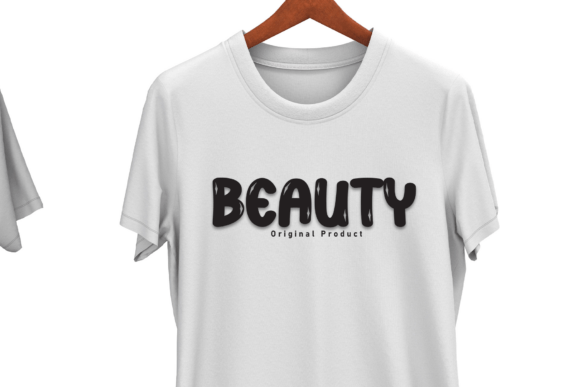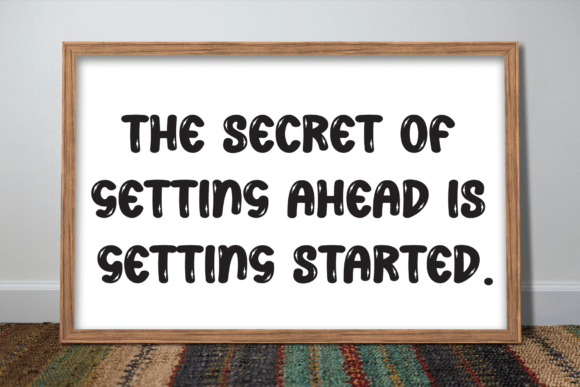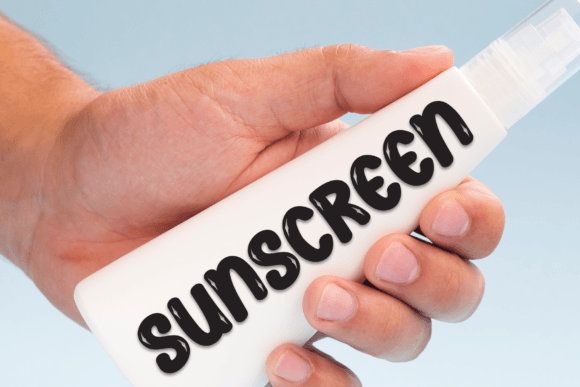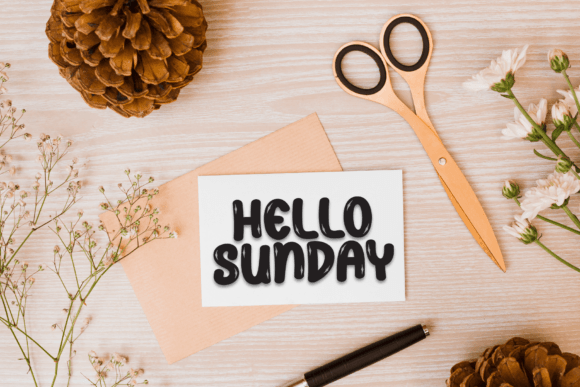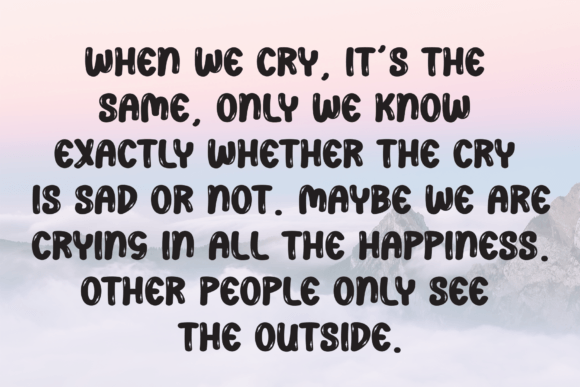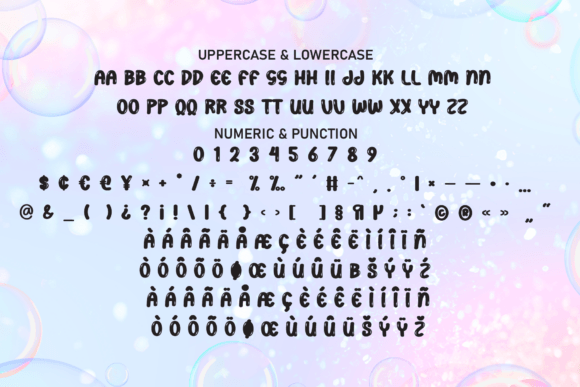
Get Ready to Pop with Joy: Introducing the Bubble Dream Font
Do you remember the excitement of opening a package of colorful bubble wrap? The sound of the bubbles popping, the thrill of the unknown, and the instant smile that spreads across your face. That’s exactly the kind of joy you can infuse into your designs with the Bubble Dream Font.
This playful font is designed to bring a sense of lightness and cheerfulness to your text. With its big, rounded, and friendly letters, it’s perfect for kids’ books, party invitations, and any project that needs a dash of whimsy. As a designer, you’ll appreciate the versatility of the Bubble Dream Font, which can add a touch of magic to your branding, advertising, or editorial work.
Whether you’re looking to create a fun and engaging visual identity or simply want to add some personality to your text, the Bubble Dream Font is sure to deliver. Its bubbly style is contagious, spreading joy and positivity wherever it’s used.
Bubble Dream Font Key Features
- Font Style: Casual, handwritten font with a playful and whimsical feel.
- Character Set: Includes a wide range of characters, including uppercase and lowercase letters, numbers, and punctuation marks.
- Unique Characteristics: Features a unique, bubbly design with varying line widths and irregular letterforms, giving it a distinctive and eye-catching look.
Bubble Dream Font Review
Overall, I think the Bubble Dream Font has some great qualities that make it stand out, but it also has some limitations that need to be considered. Let’s start with the good stuff! ✨
- Unique style: The Bubble Dream Font has a distinctive, whimsical style that can add a touch of playfulness to any design. It’s perfect for projects that need a bit of personality.
- Customizability: The font has a wide range of weights and styles, making it easy to find the perfect fit for your project.
- Fun for creative projects: The font’s playful nature makes it a great choice for creative projects, such as children’s books, social media graphics, or advertisements.
- Readability: The font can be difficult to read in small sizes or at a distance, which may limit its use for body text or signage.
- Lack of sophistication: The font’s playful nature may not be suitable for more formal or professional projects.
- Not ideal for long blocks of text: The font’s whimsical style can make it difficult to read long blocks of text, which may limit its use for articles or other written content.
Overall, I think the Bubble Dream Font is a great choice for projects that need a bit of personality and creativity. However, it’s not suitable for every project, and its limitations need to be carefully considered.
The Bubble Dream Font is perfect for creating whimsical and playful designs. Use it for:
1. Social media graphics and posts.
2. Event invitations and promotional materials.
3. Children’s educational materials and activities.
4. Any project that requires a fun and lighthearted tone.